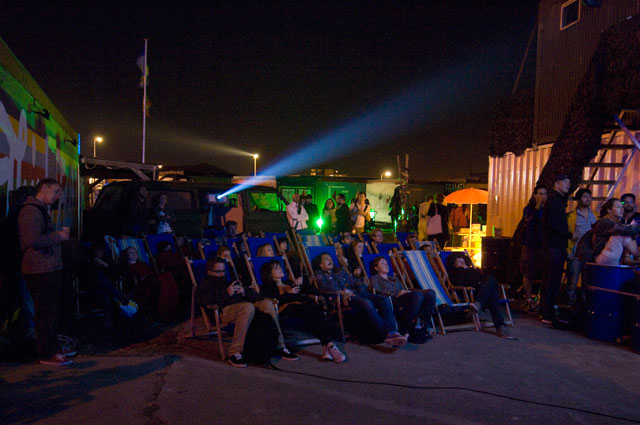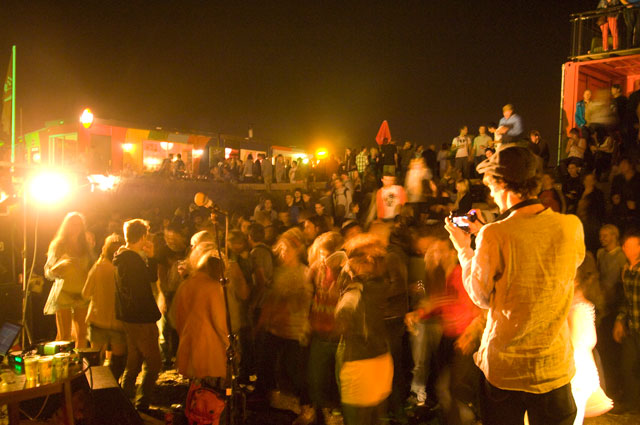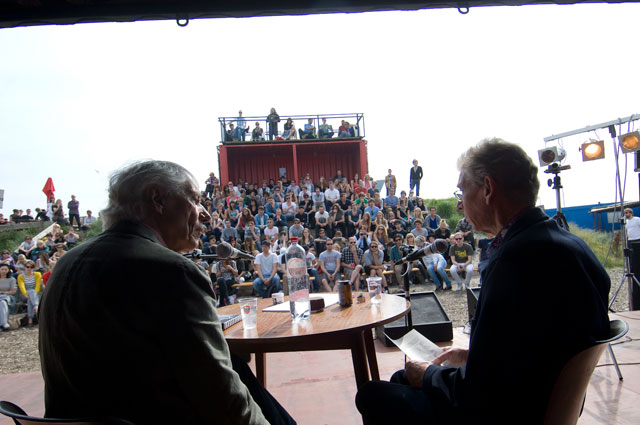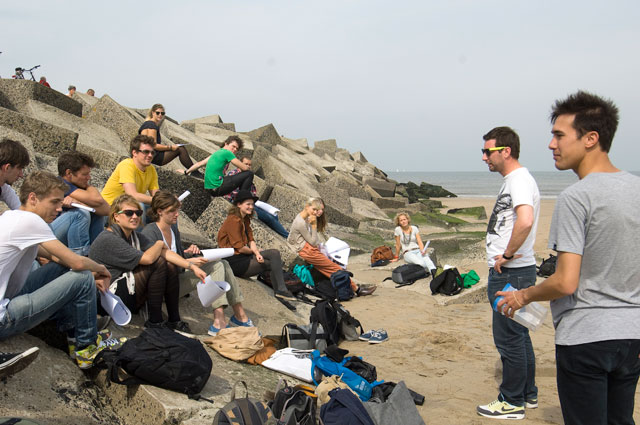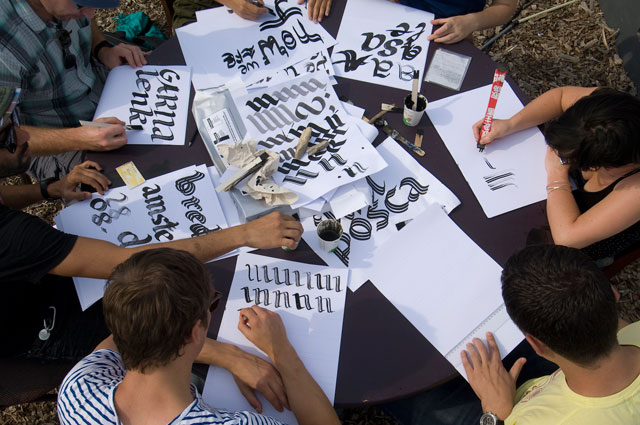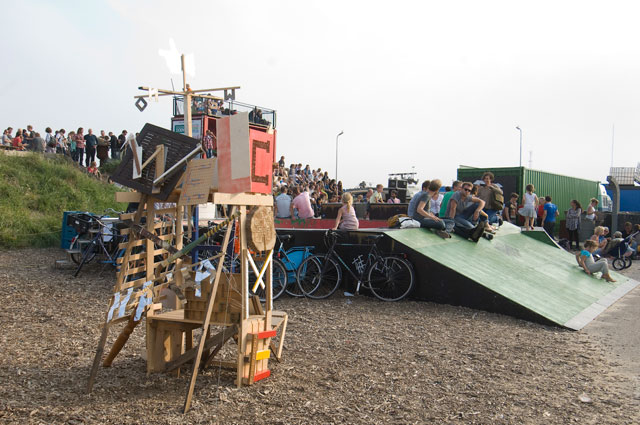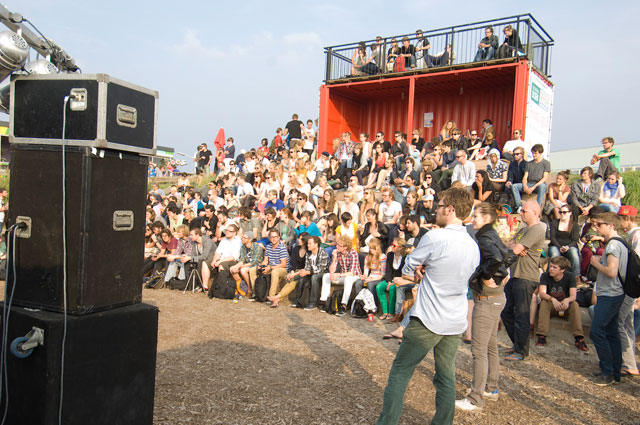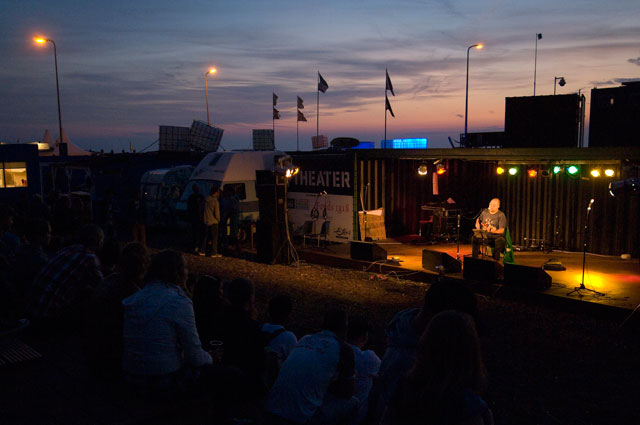
The 3rd issue of 8Faces included a typographic lottery. Two-bloody-thousand different Je t’aime cards have been spread, only one is perfect. Win, win win. Since then the Twitters was on the go. But despite all twitpics, instagrams, flickrs, yfrogs and picless tweets, the winner hasn’t reported himself yet.
There seem to have been some distribution problems with the magazine, maybe the golden ticket is firmly lost at the office of a Brazilian postman? Caramba. Does that man actually know the golden ticket yields a bottle of champagne?
Being European, we will never understand Halloween, that stupid party. Although it remains an – inescapable – American event, we wouldn’t consider a book printed with blood a true Halloween-like publication.
Probably dressed up dogs are much more suitable for Halloween, right? But our favourite typographic Halloween creation is made by André Mora, who spend some hours with his pumpkin to cut the Yes/No oscillator out.
Unfortunately you can’t even eat this, so we’ll skip Halloween and wait for typographic Sinterklaas creations instead. Yummie.
The latest issue of Publish magazine does not only contain a main article about Underware, we also made a new oscillator for their cover. After creating an oscillator in the past which can be read as Yes and/or No, we created another oscillator for this special typographic issue with the same words in Dutch, Ja and/or Nee. Kun jij dit lezen?
Next step is of course French: Oui/Non. Spanish: Sí/No. Or worse, Finnish: Kyllä/Ei. Now that’s a challenge!
Hubba-hubba, today it’s exactly 10 years since we released our first typeface. Our website was pre-1.0, we still had a fax, we played music on CD’s, were super happy with our 4GB mega-sized external hard disk, none of us was balding.
Dolly. Introduced with a party-hardy, she steadily grows to become a stayer in the world of book typography. Instead of giving Dolly her own Twitter-account for her birthday, we promised her some extra weights and styles. Makes her much happier. Still some patience needed before her makeover is finished though…
For hardcore Dolly-lovers: here are some Dolly illustrations from our grubby archives.
Some months ago we offered our mailing list five free rings (worth 200 Euro each). Because we’d just hooked up with Typerings, anybody could win a free ‘alles geben’ ring. The only thing you had to do was telling us what ‘alles geben’ truly means to you. Simple.
Last Friday we were all damn lucky to get sunburned at Typeradio‘s first open air festival. 26° Celsius intensified the pleasure of the 500 visitors and tons of participants. See lots of pictures at the festival website Now-we-are-talking.nl or read a review at the FontFeed. We would just like to thank everyone for the good atmosphere, the good music, nice music, the good words and nice words, surprising creations, the positive energy and especially thank the Type Legends for stirring up and inaugurating this event.
If you’re the lucky owner of the third issue of 8 Faces magazine, you came across a loose flyer. Yep, we Liza made that flyer by hand. 2000 different versions have been distributed, they are all different! You could be damn lucky and win this typographic lottery.
We don’t expose our Typeradio activities here a lot, but feel it’s time to make an exception now. After years in the making, the Type Legends box is going to be published soon. Type Legends? Yes, we thought it would be a good idea to interview four persons who influenced our lives and the (typo-)graphic design field in general: Wim Crouwel, Ed Benguiat, Adrian Frutiger and Gerrit Noordzij. Living legends if you ask us. We extensively talked to them for this series, but that ain’t enough. We would wrong them by simply publishing these interviews online, we felt this was a perfect moment to honour them with a special publication.
After we interviewed the four legends, every interview was handed over to a different band. Each band – Supercity, The Walt, Legowelt & Jac Palinckx – composed and recorded two songs for this legend, based on the interview. These songs are now published as vinyl records. The record sleeves are designed by four different graphic designers who all have a connection with each legend. Dutchman Erik van Blokland designed the sleeve for Gerrit Noordzij’s music, Swiss Büro Destruct for Adrian Frutiger, Strange Attractors for Ed Benguiat and the Amsterdam based Experimental Jetset created the cover for Wim Crouwel. Last but not least the American curator and writer Ellen Lupton wrote a fictional essay on these four legends. ‘Four Typographers walked into a Bar’ describes a hilarious meeting between the four gentlemen.
This Type Legends box will be presented at 2 September 2011 at the Now we are talking Festival in Den Haag. This super relaxed Typeradio event – composed of workshops, talks, music, films, surfing, camping & love – takes place at an extravaganza location at a Dutch beach pavillion. You can be part of this now-or-never day simply by registering. If you want to be absolutely sure that you are the proud owner of the limited edition Type Legends box, you can personally pick it up that day. First come, first serve.
Today in our mailbox: letters from Tanja & Etapes magazine.
You might remember Tanja, the girl over whom we almost lost our heads last year because she send us cryptic messages accompanied by 3D typographic objects. As we now know, Tanja creates 3D objects (pillows, chairs, etc) based on letter shapes, and sells them under her label Tüpo. Being a true Bello and Sauna lover, she is a heavy Underware-user. Today we found some Bello-keyrings and Sauna-bookmarkers in our mailbox. Wow. Tanja: we love you more and more!
Select your ring, enter your own text, and choose from eight divergent fonts to give your words the right spirit. Yes, they’re all your favourite Underware fonts. As we always design our butts off with every curve in our typefaces, we’re delighted that the engraving on these rings looks absolutely astonishing.